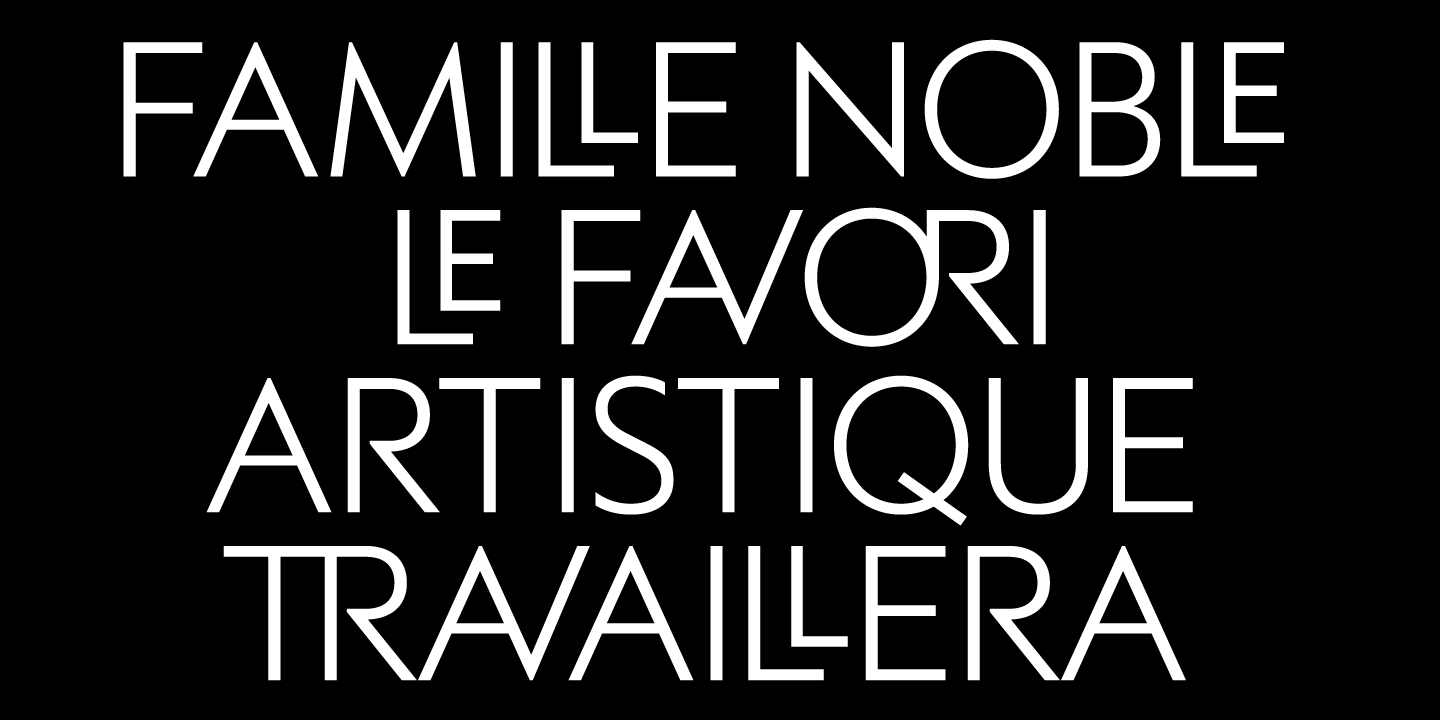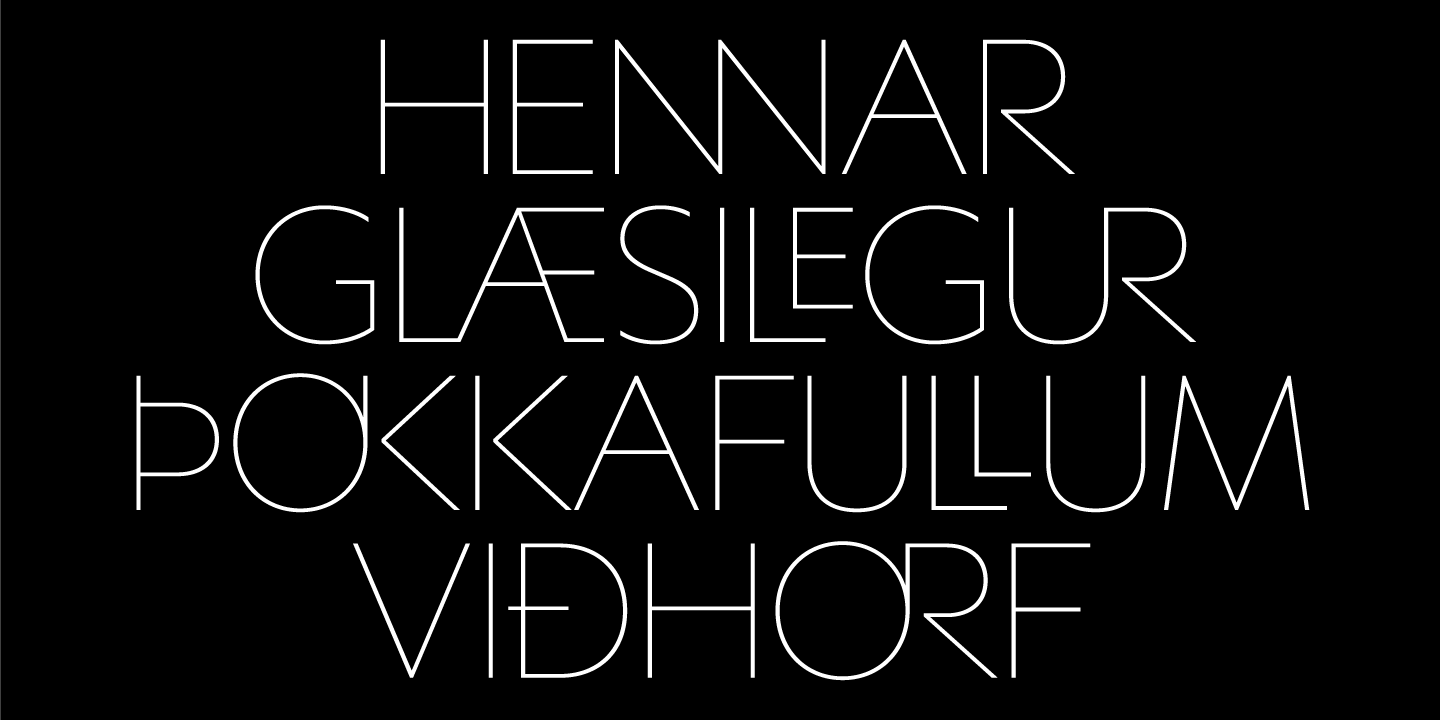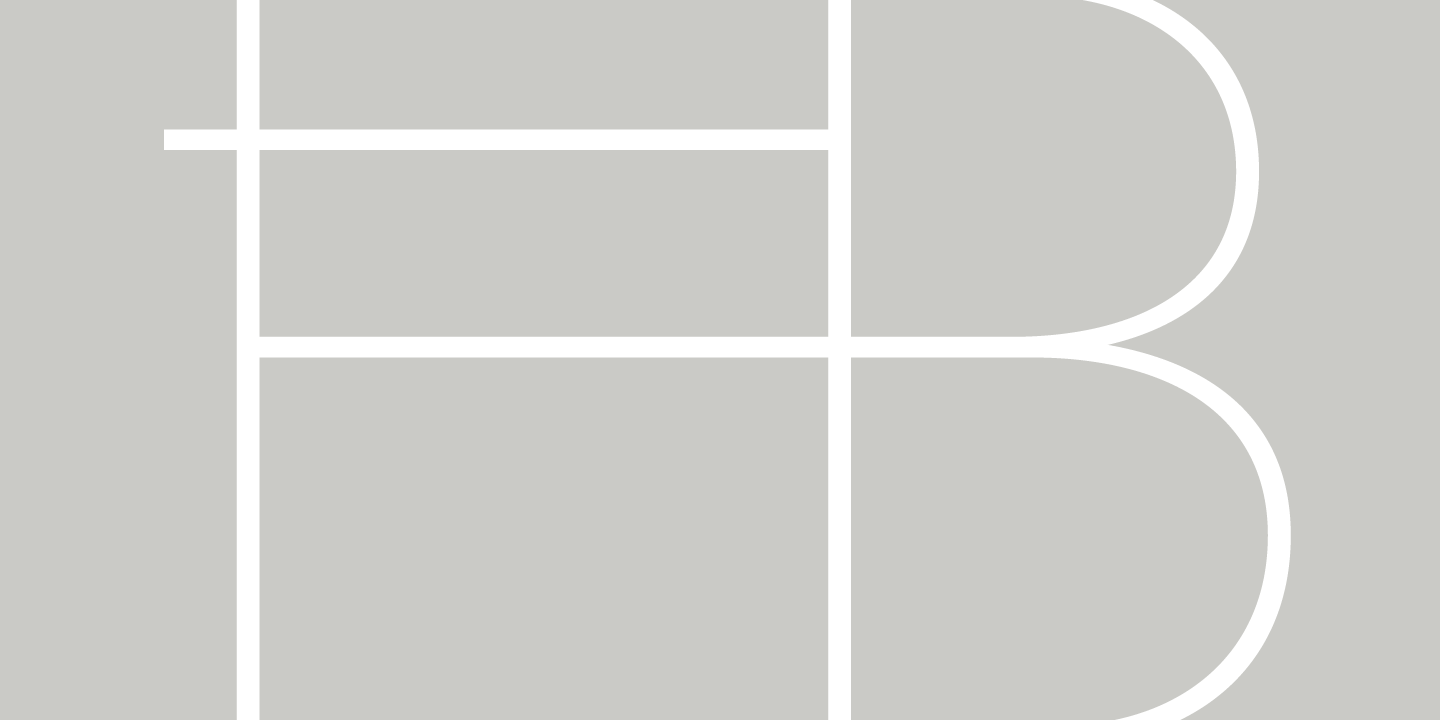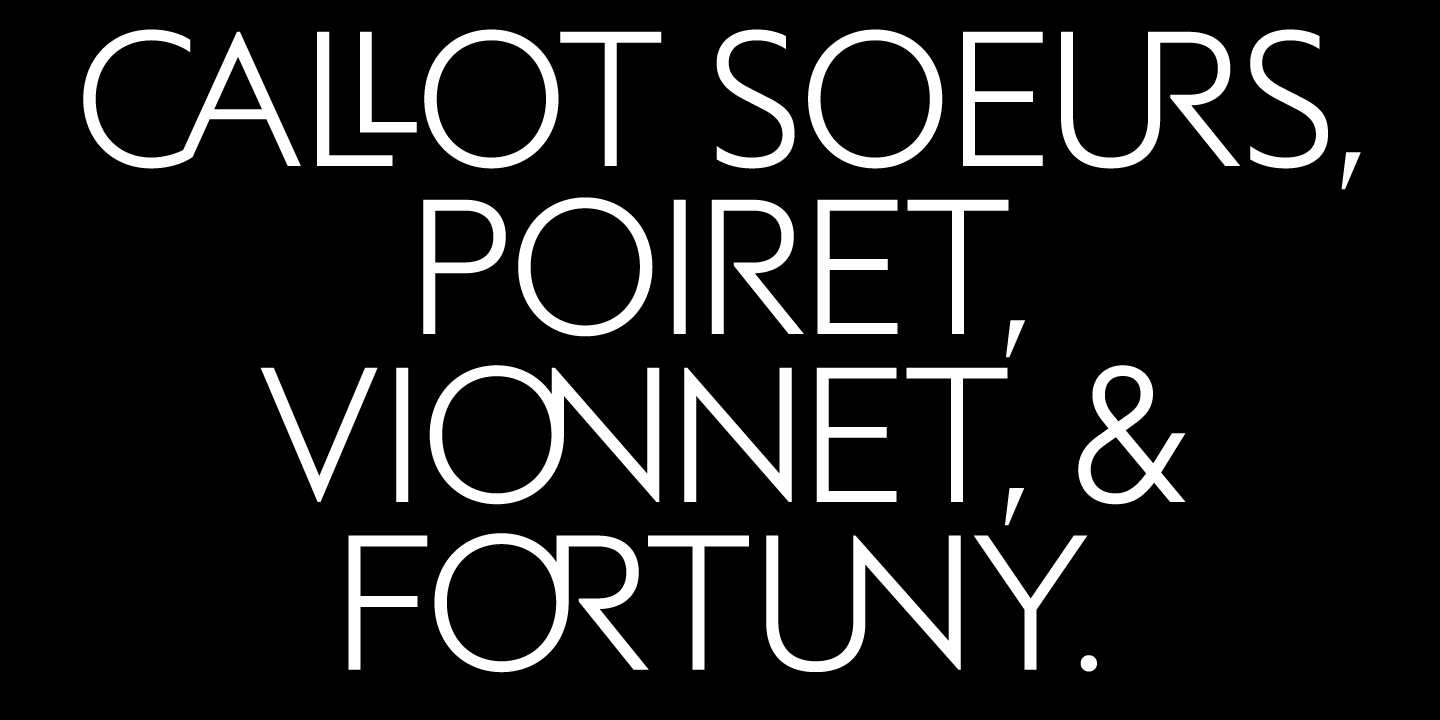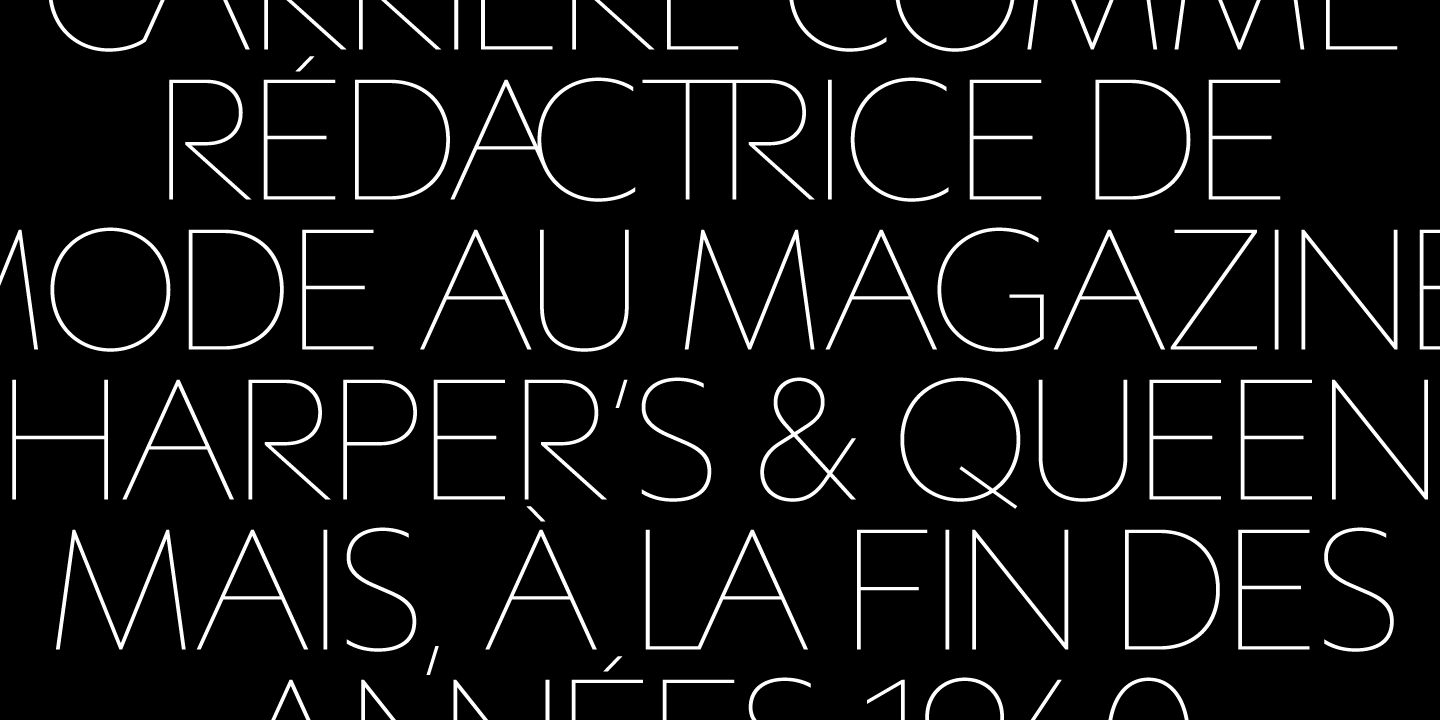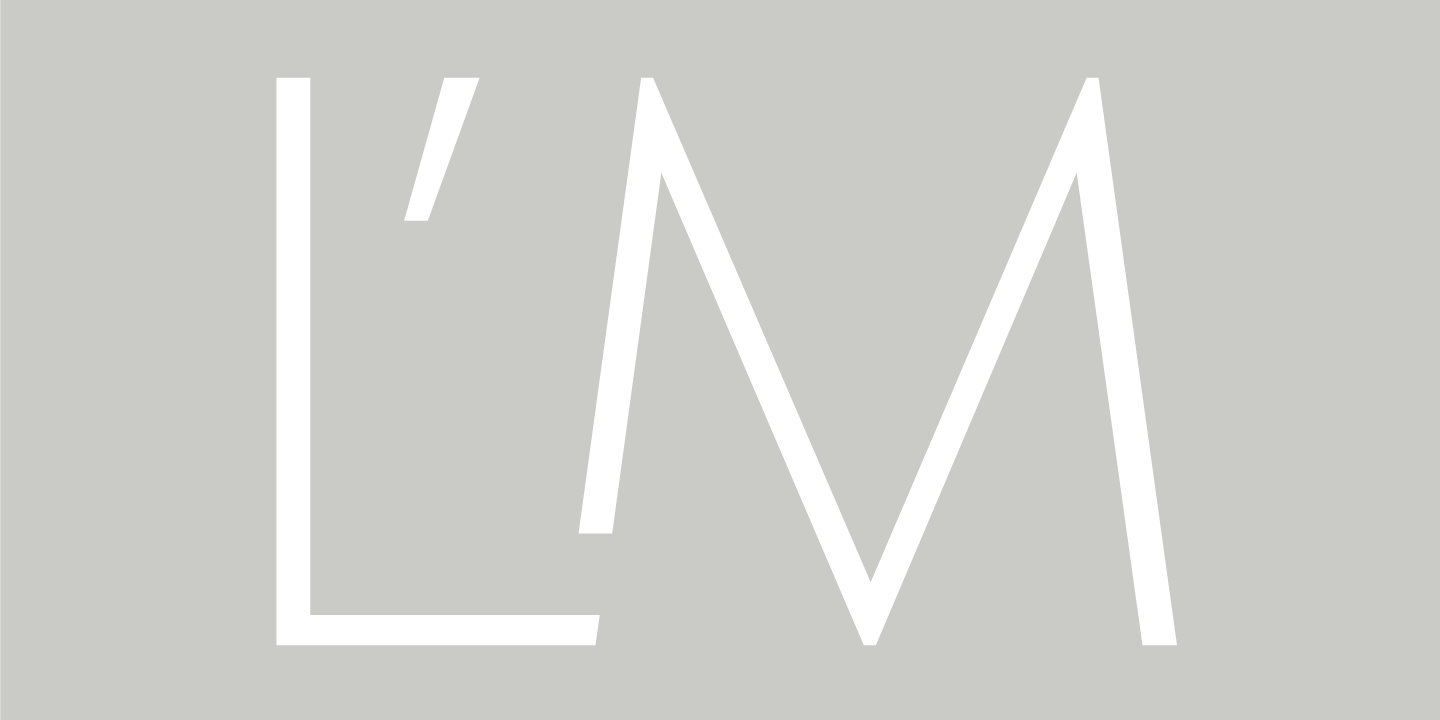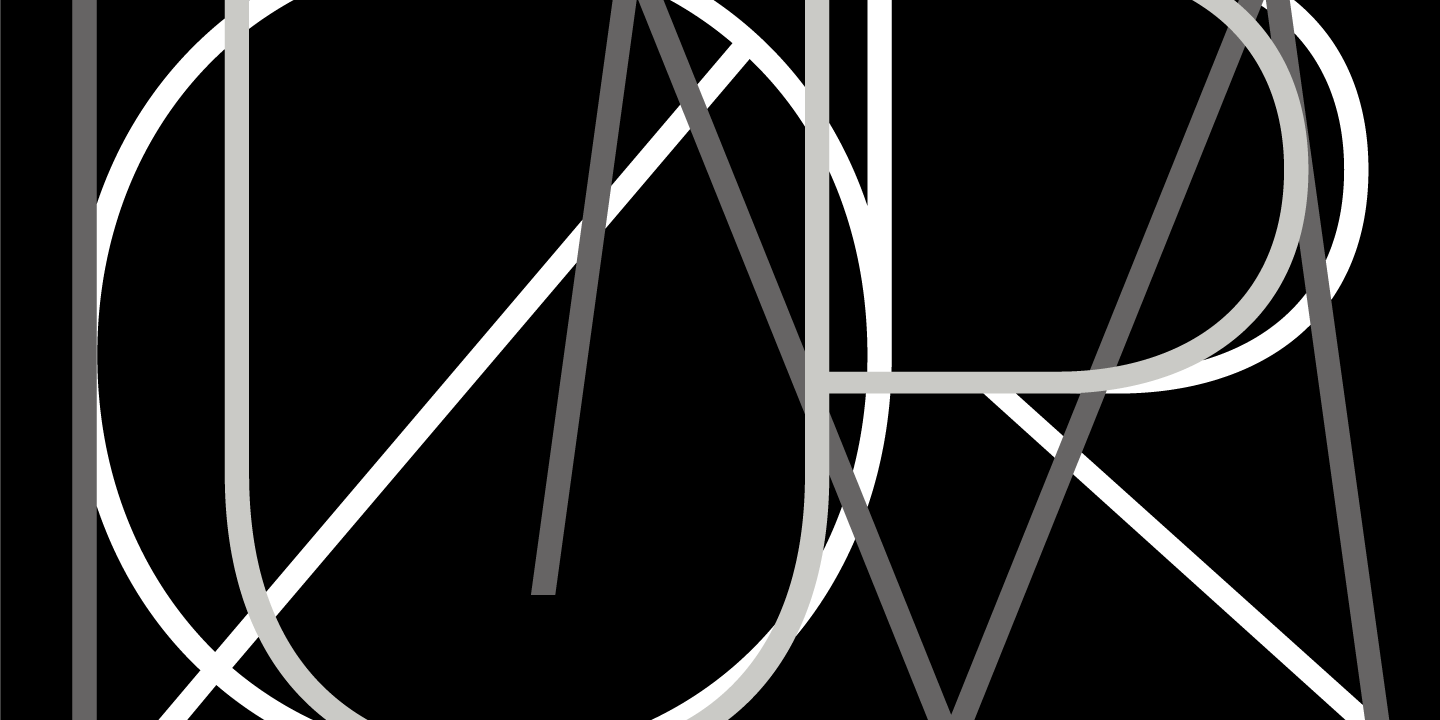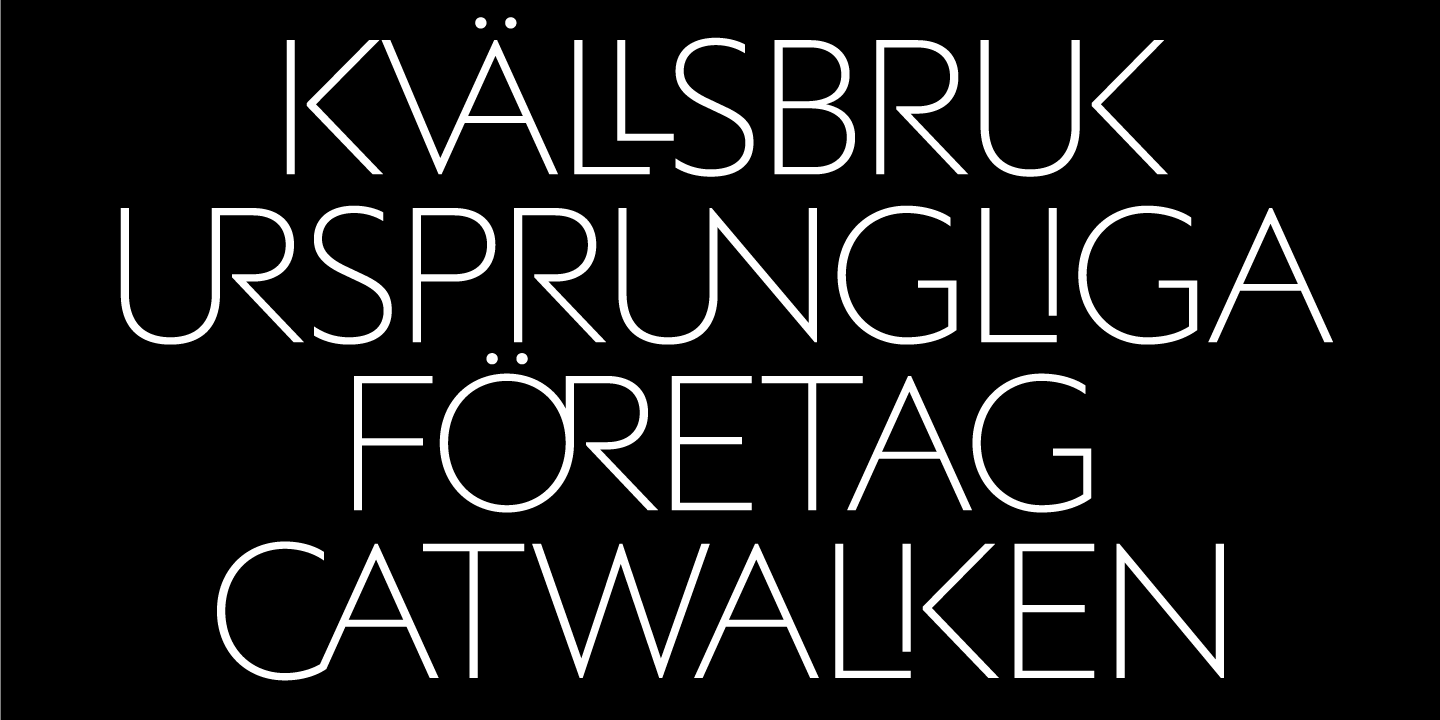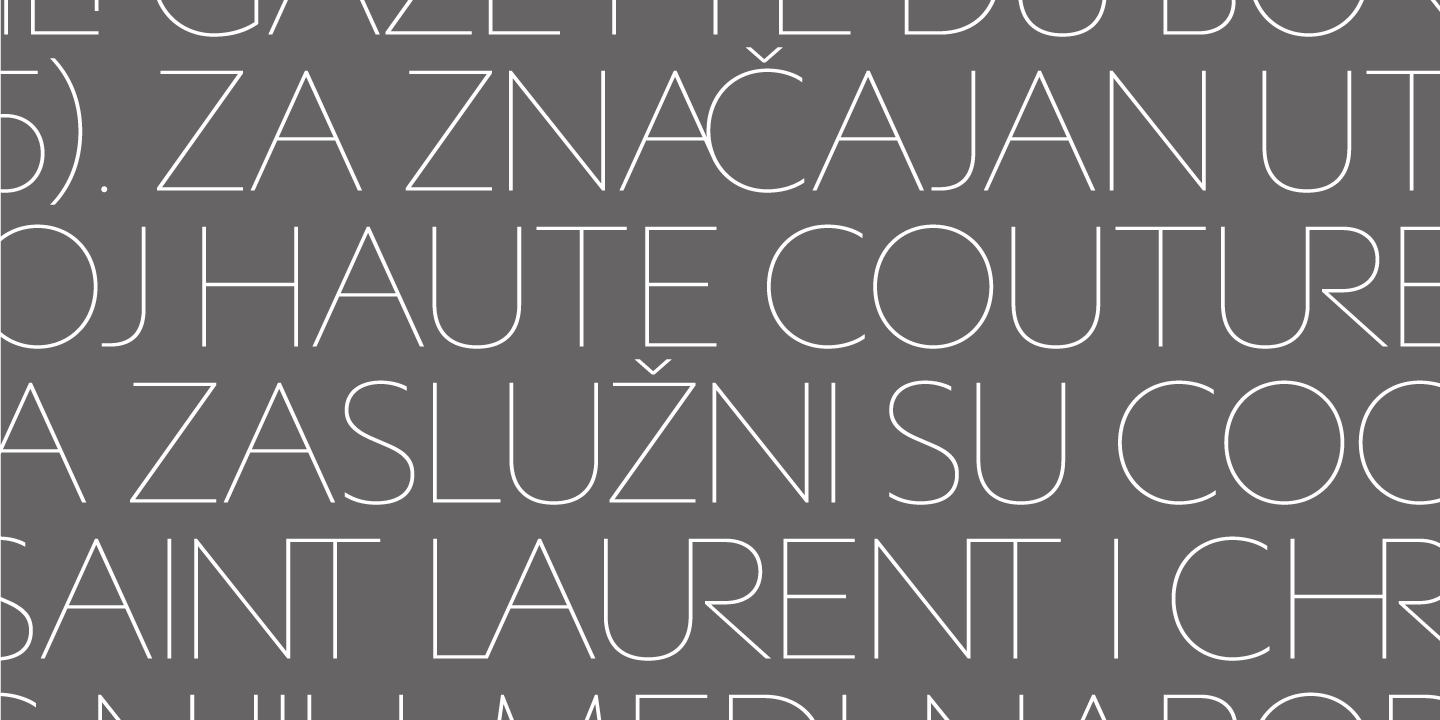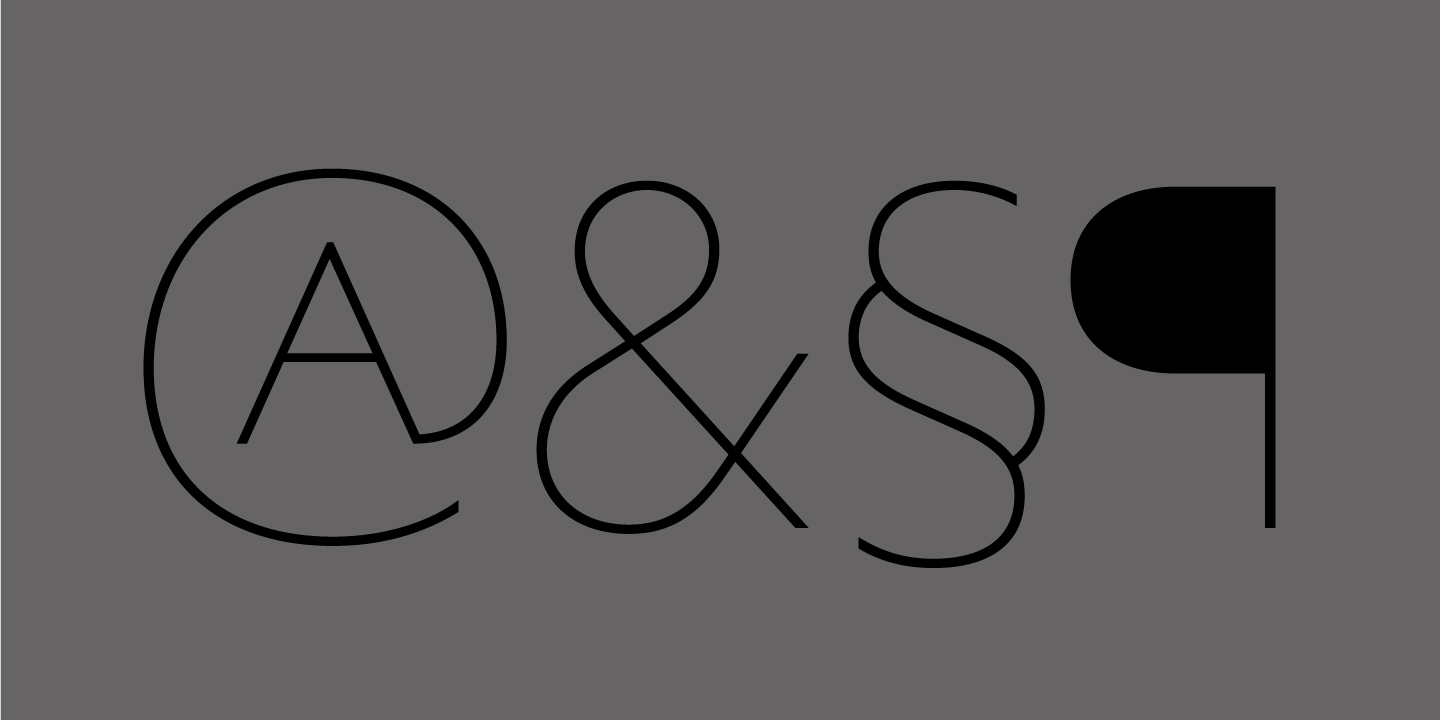
Averes Title Complete
Font Family by AE Type
Averes Title is a sharp geometric sans titling typeface available in three weights. It features an array of stylistic discretionary ligatures with corresponding accented variants supporting numerous languages.